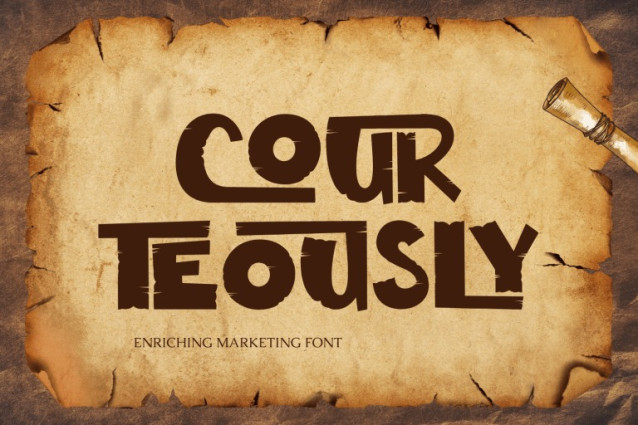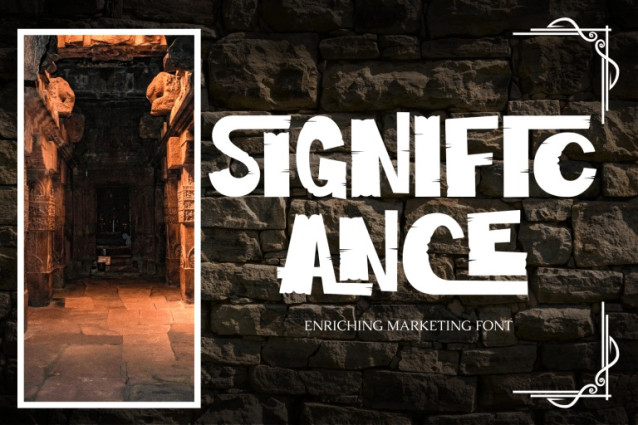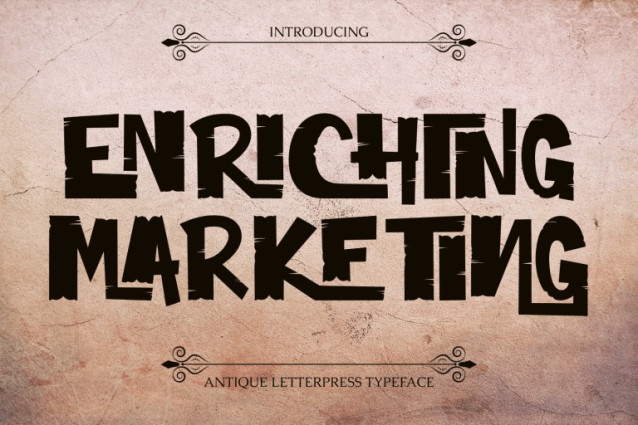
Enriching Marketing Font
ENRICHING MARKETING – GRUNGE FONT – Bold Rough Sans Serif, a bold rough sans serif display font with a strong industrial and grunge-inspired character. This typeface features heavy block letterforms combined with distressed edges, uneven cuts, and raw texture details that create a powerful, rugged, and rebellious look. ENRICHING MARKETING is designed to feel energetic and unapologetic, capturing the spirit of street art, punk culture, underground posters, and handcrafted typography. The rough strokes and imperfect contours add a handmade, worn-in quality, making every word feel bold, authentic, and full of attitude.
🔤Features:
Uppercase & Lowercase Letters
Around 100 Special Ligatures & Alternates
Accented Characters for multilingual support
🔤About 100 ligatures combined with Stylistic Alternates Font:
AC AD AL AN AR AS AT AU AV BE CA CE CH CO CT DE DI EA EC ED EE EL EM EN EP ER ES ET FE FO FR GE HA HE HI HO IE IC IL IN IO IR IS IT JU KE LA LE LI LL LO LY MA ME MI NC ND NE NG NO NT NS OC OF OM ON OO OP OR OT OU OW PA PR RA RD RE RI RO RS RT SE SH SI SO SS ST TA TE TH TI TO TR TT UM UN UR VE WI WO